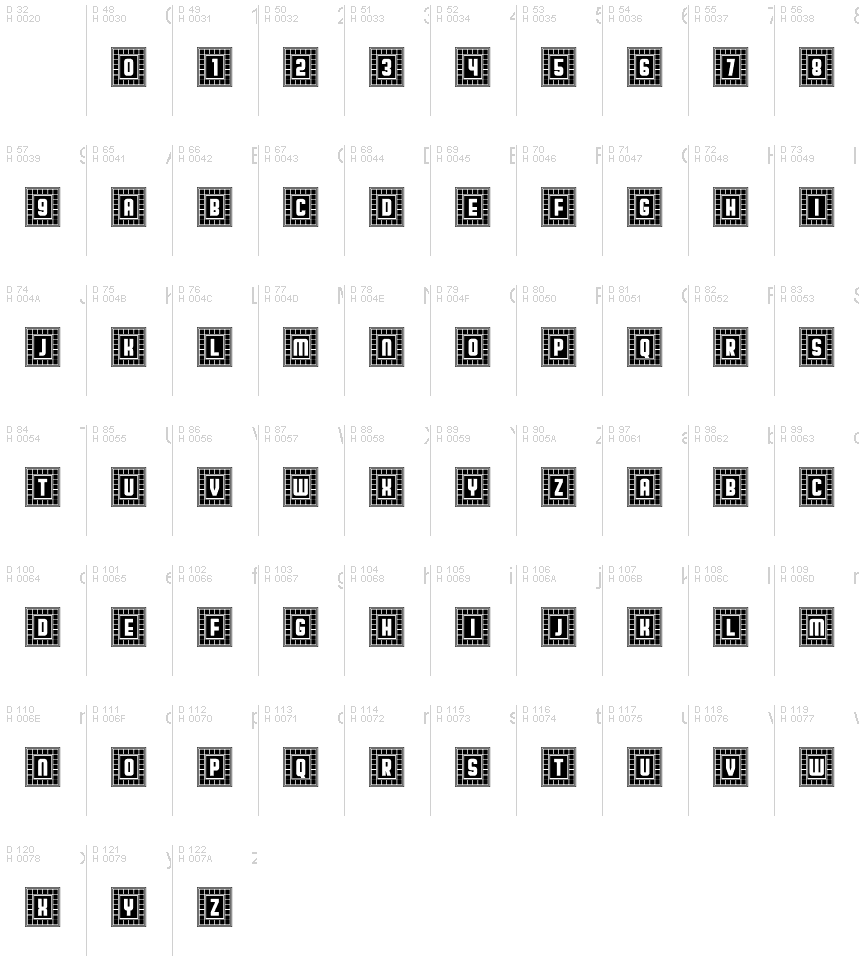
Broadway Capitals Regular
Broadway Capitals, designed by Vladimir Nikolic, is a stunning display font that exudes a decorative style with a semi-bold weight and condensed width. Perfect for creating attention-grabbing headlines or eye-catching logos, this font is versatile enough to be used in various projects, including posters, flyers, book covers, and more. Its boldness and elegance make it an ideal choice for fashion-related content or any project that requires a touch of sophistication. With Broadway Capitals in your design arsenal, you'll be sure to impress your audience with its unique and dramatic flair.
Regular, Light, Light Negativ, Negativ !